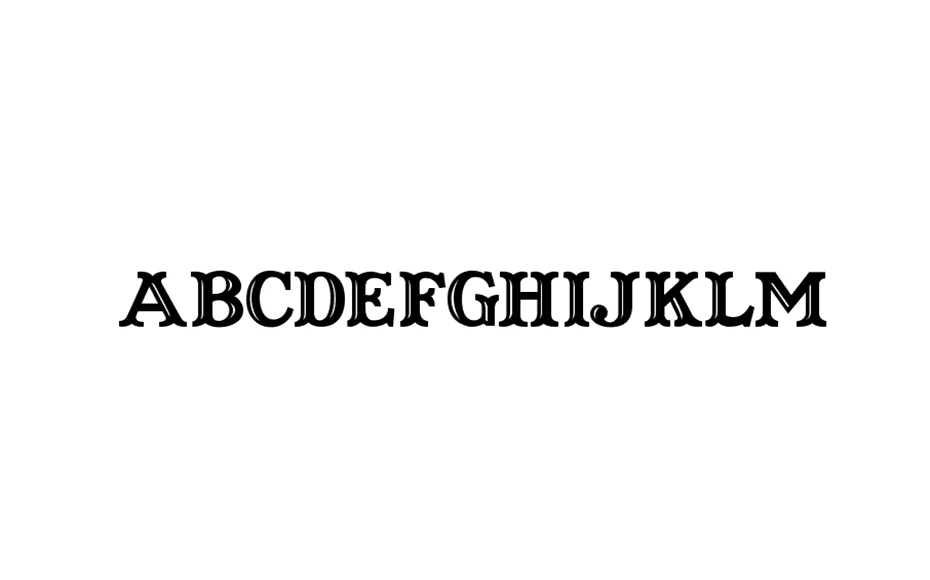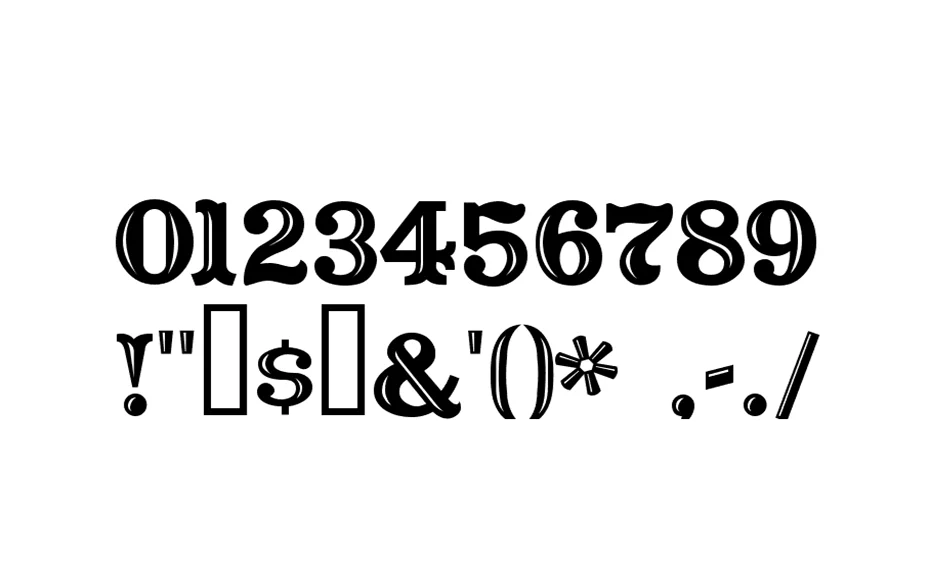
Captain Howdy Font of design featured stunning unique typefaces with exceptional details. And the wonderful font is inspired by the old-school style.
Harold Lohner took the charge of designing and sharing it for the first time. And he releases it via Harolds Fonts foundry from 1999 to 2002.
The designer takes special care of it and tries to make each letter more interesting. Therefore, many font designers are using it for their special and unique projects.
And for general projects, you can do with other basic font families. But if a designer demands a unique design that no one has seen before, then this is the best font to make it.
Font Name:Captain Howdy Font
Style:Old-School, Fancy, Typeface
Font Designer:Harold Lohner
All the characters include a sweet clear shape and bold texture as you can see in the pictures. In this way, it becomes a sweet and wonderful font in the market.
You can use this unique font for the fabric industry, logo designing, product design, product packaging, brochures, banners, head titles, children’s bags, product designs, product packaging, flyers, covers, shopping bags, and more.
It has available only in regular style along with Truetype features. Furthermore, it has to contain 186 unique glyphs and 1000 units per em.